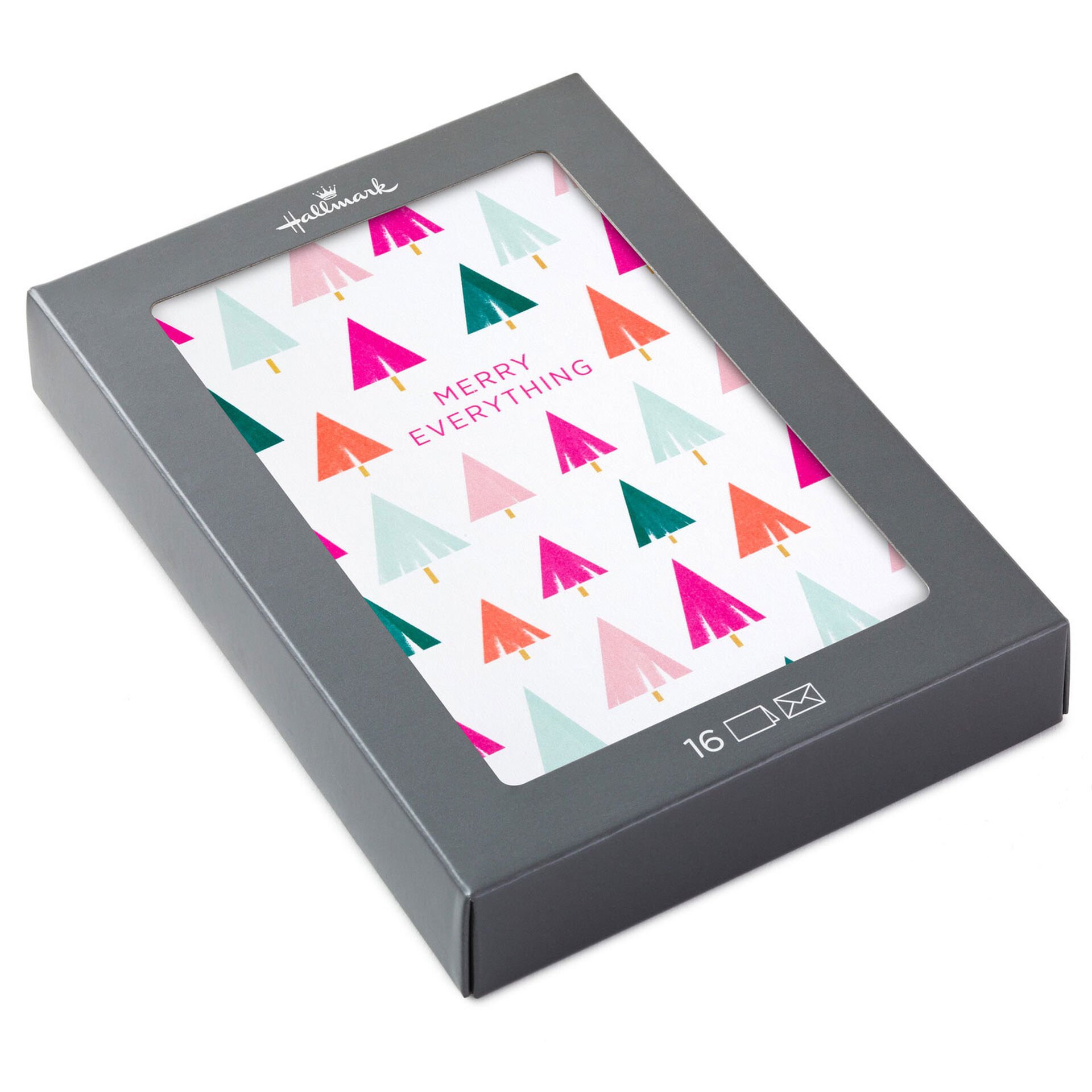
Over the years I’ve done lots of monoweight script lettering for Hallmark (especially early in my career) and I Ioved creating the title and inside tag to accompany this adorable holiday illustration!
This fun collection for Hallmark features my “Oh, What Fun!” retro script and my illustrated Christmas tree pattern. I love how this group of cards would be so easy to send to anyone this holiday season!
One of the projects our studio participate in at work is a “lettering blitz” where we have the chance to create new lettering styles for different recipients. I always love seeing how they are used, and my "granddaughter” lettering complements this adorable pink tree so well!
Christmas is just a few days away and I’m thrilled to get to share that this ornament trio I illustrated was used on this beautiful Christmas card for Mom. This holiday season has been extra special since becoming a mom, and can’t wait for all the future Christmas memories we will still create!
Signature product never disappoints and I was thrilled to see my Christmas tree illustration used in the most fun palette on this boxed card set. I picked one up to send to friends this year!